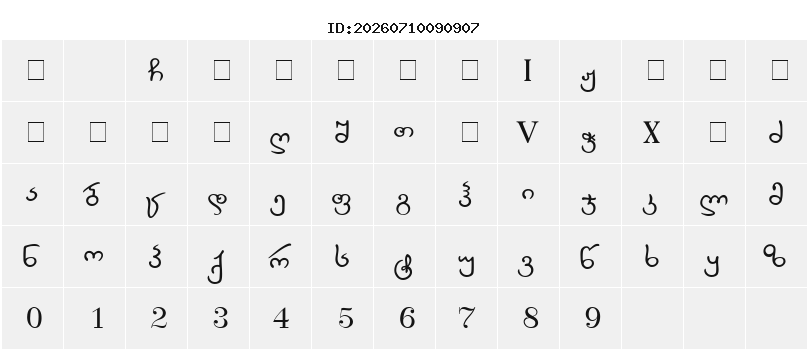
• Font Name: Eka
• Full Font Name: Eka
About Eka.ttf
Eka.ttf is a modern, elegant sans-serif font designed for ultimate readability and visual harmony. Perfect for branding, headlines, web design, and print materials.